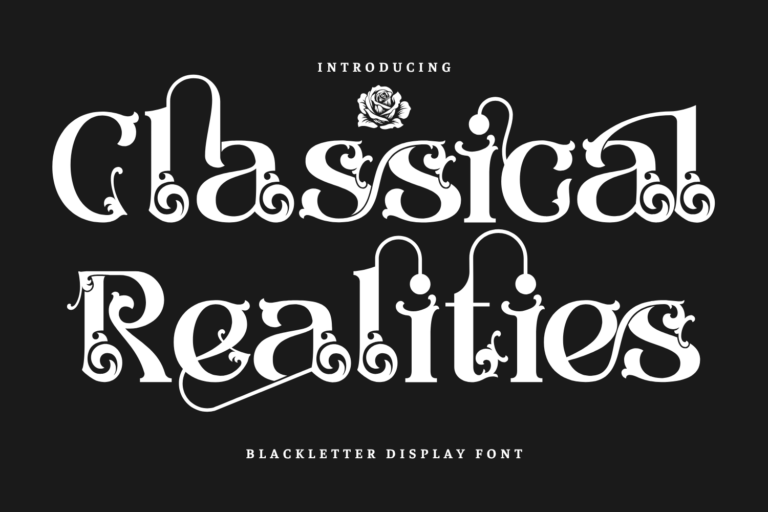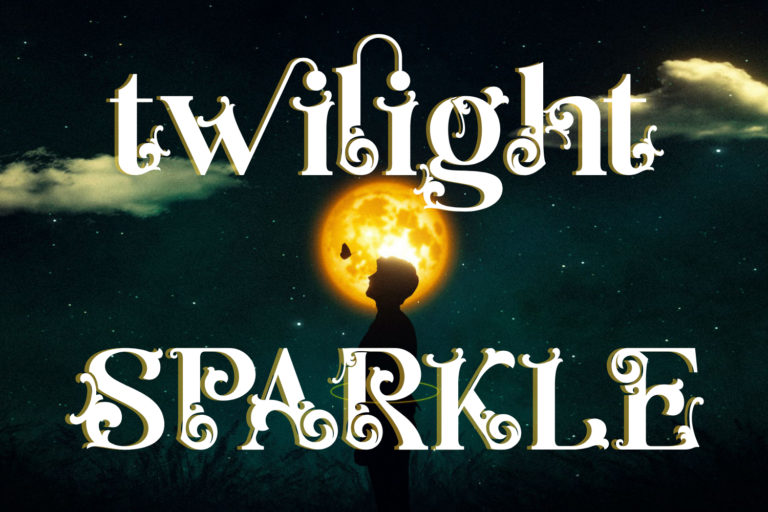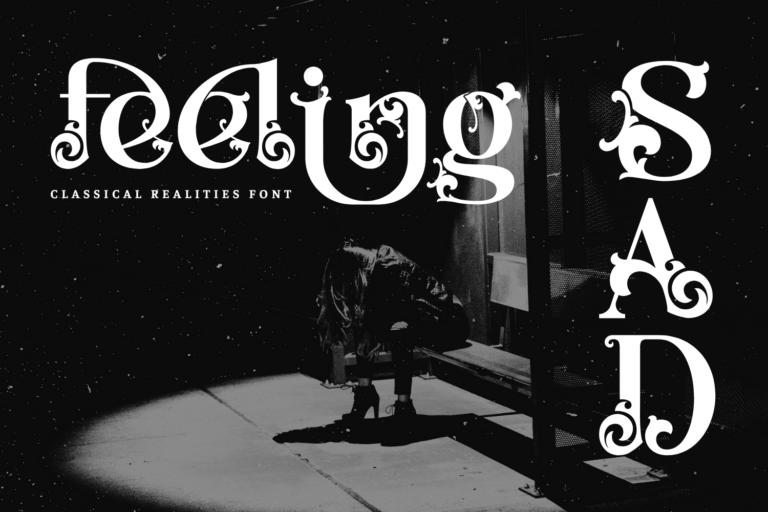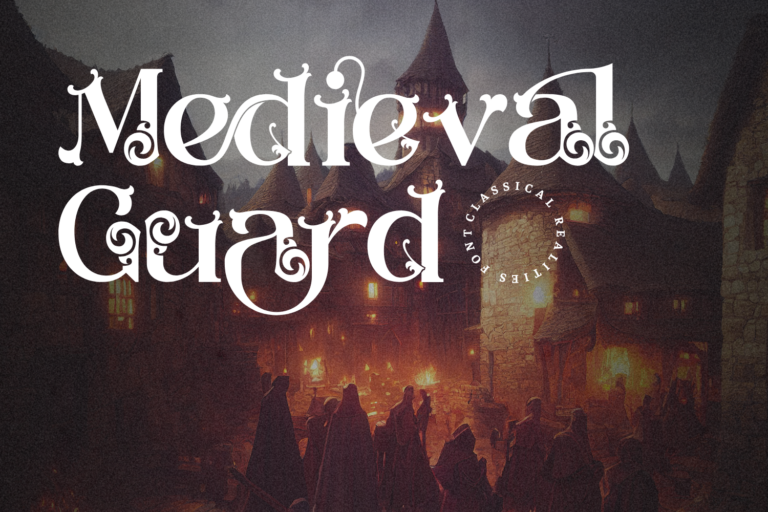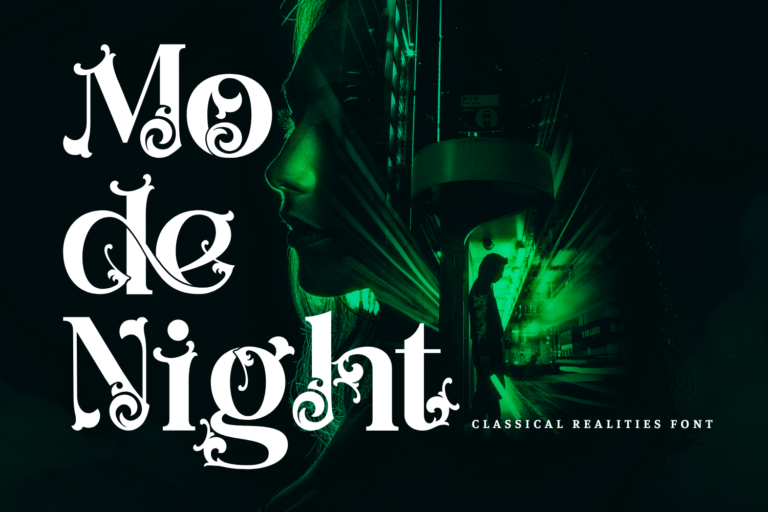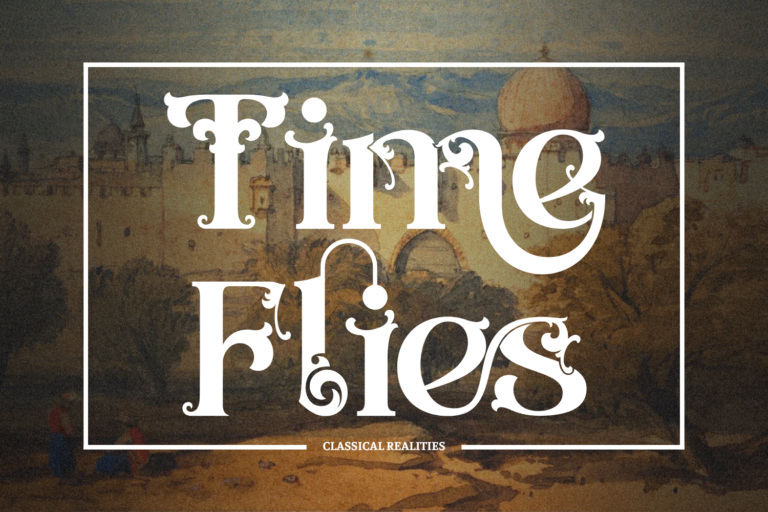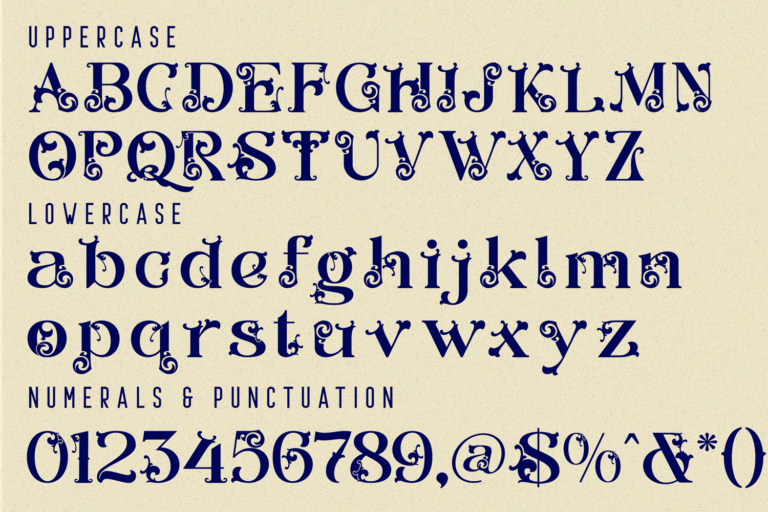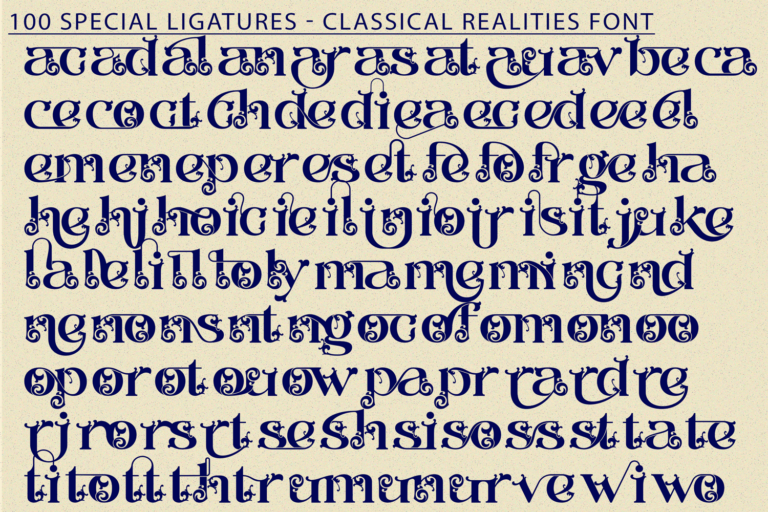
Classical Realities Ligature Serif Font – An Ornamental Baroque Display Serif, a majestic and elaborately detailed ornamental serif font inspired by the grandeur of classical architecture and Baroque artistry. Every glyph in this typeface is adorned with swirling terminals and intricate flourishes, turning text into visual poetry. Classical Realities is perfect for editorial headlines, luxury branding, gothic fashion, theatrical posters, book covers, or any design that desires drama and decadence.
Features:
• Uppercase & Lowercase Letters
• ~100 Special Ligatures & Stylistic Alternates
• Accented Characters for multilingual support
ac ad al an ar as at au av be ca ce ch co ct de di ea ec ed ee el em en ep er es et fe fo fr ge ha he hi ho ie ic il in io ir is it ju ke la le li ll lo ly ma me mi nc nd ne ng no nt ns oc of om on oo op or ot ou ow pa pr ra rd re ri ro rs rt se sh si so ss st ta te th ti to tr tt um un ur ve wi wo
Classical Realities Ligature Serif Font